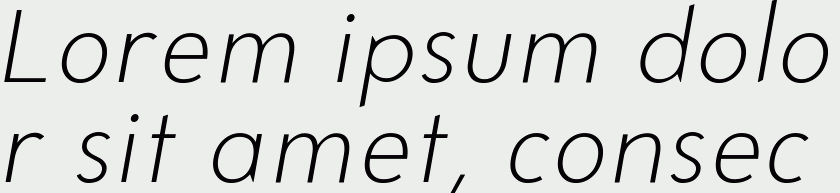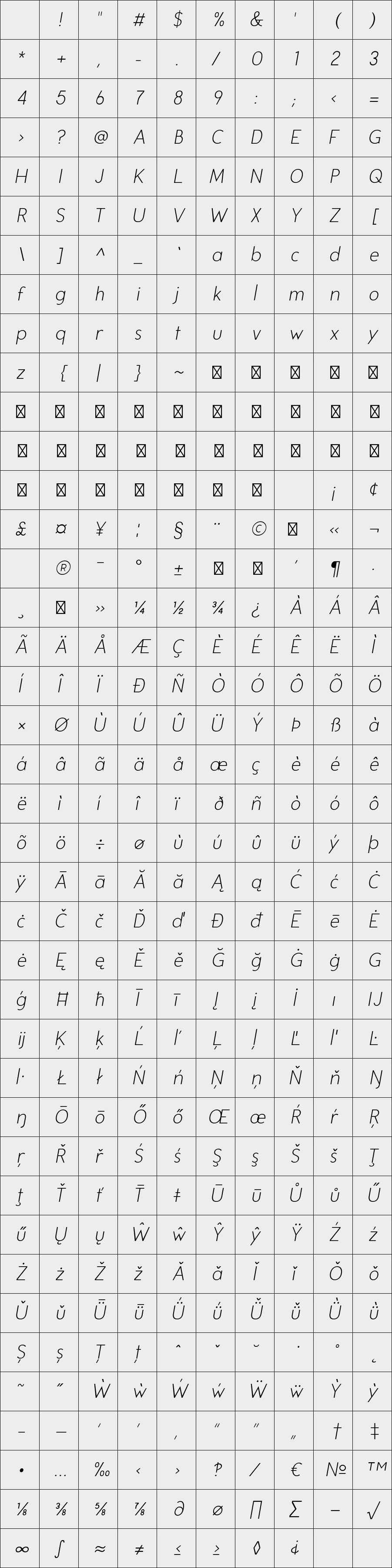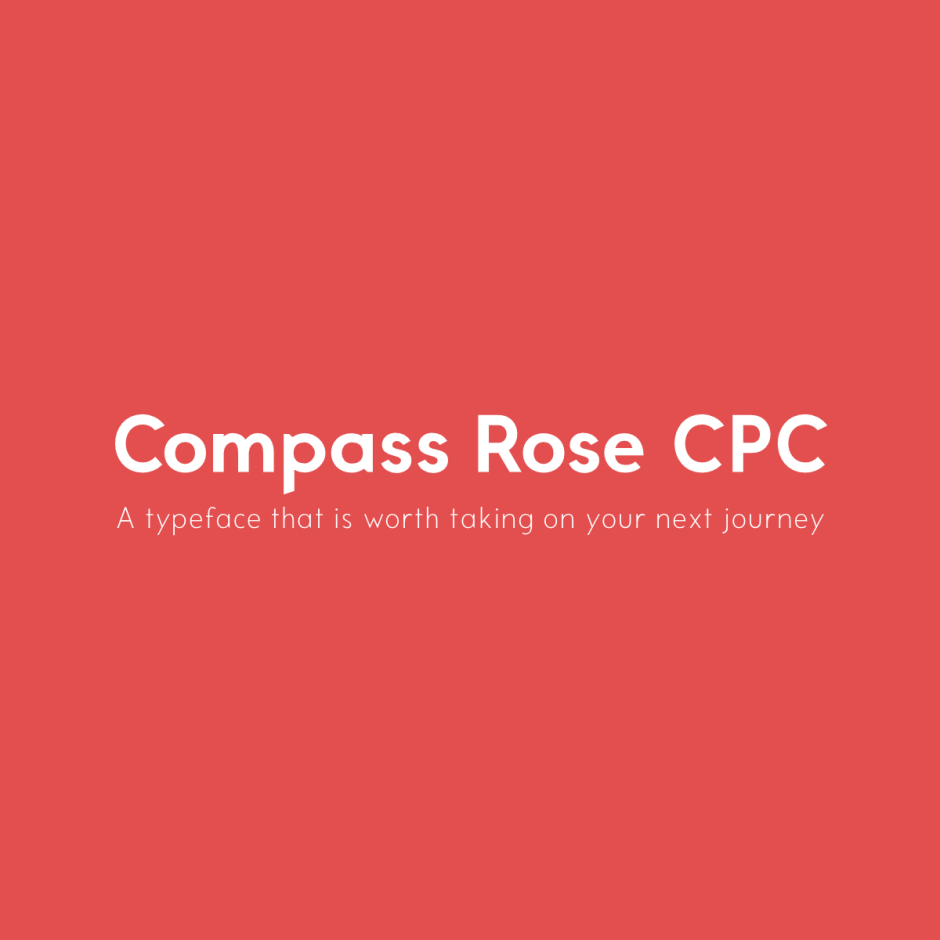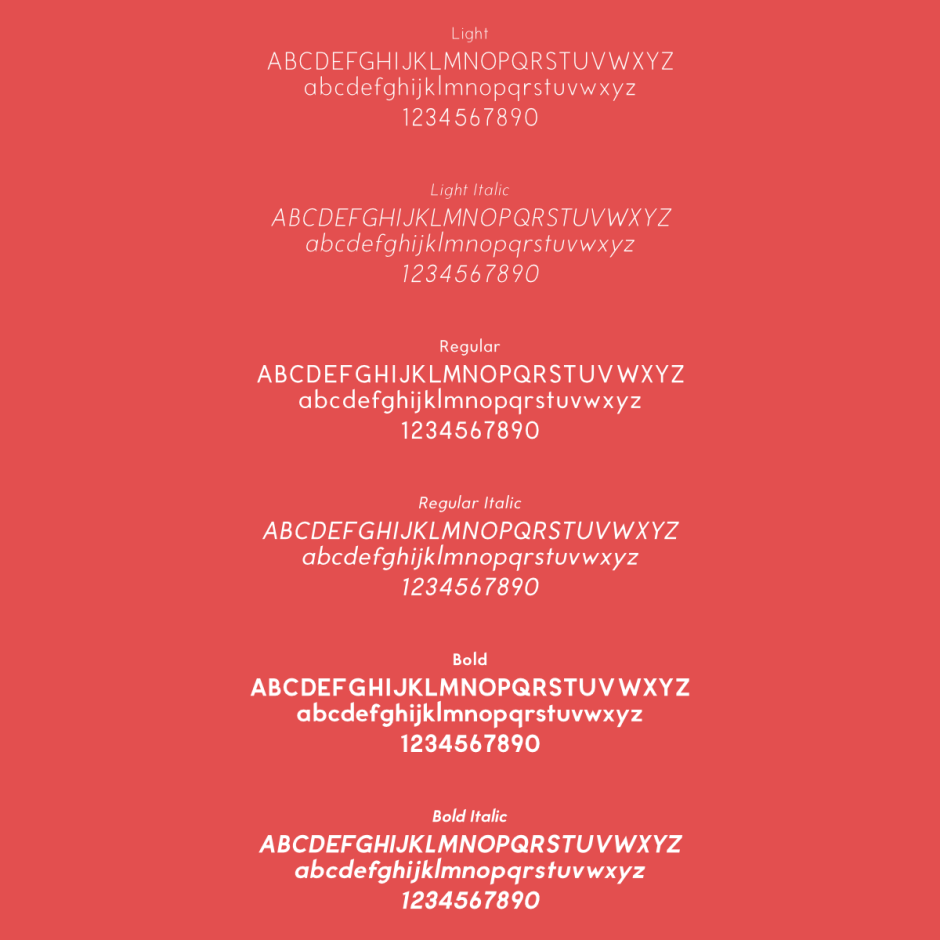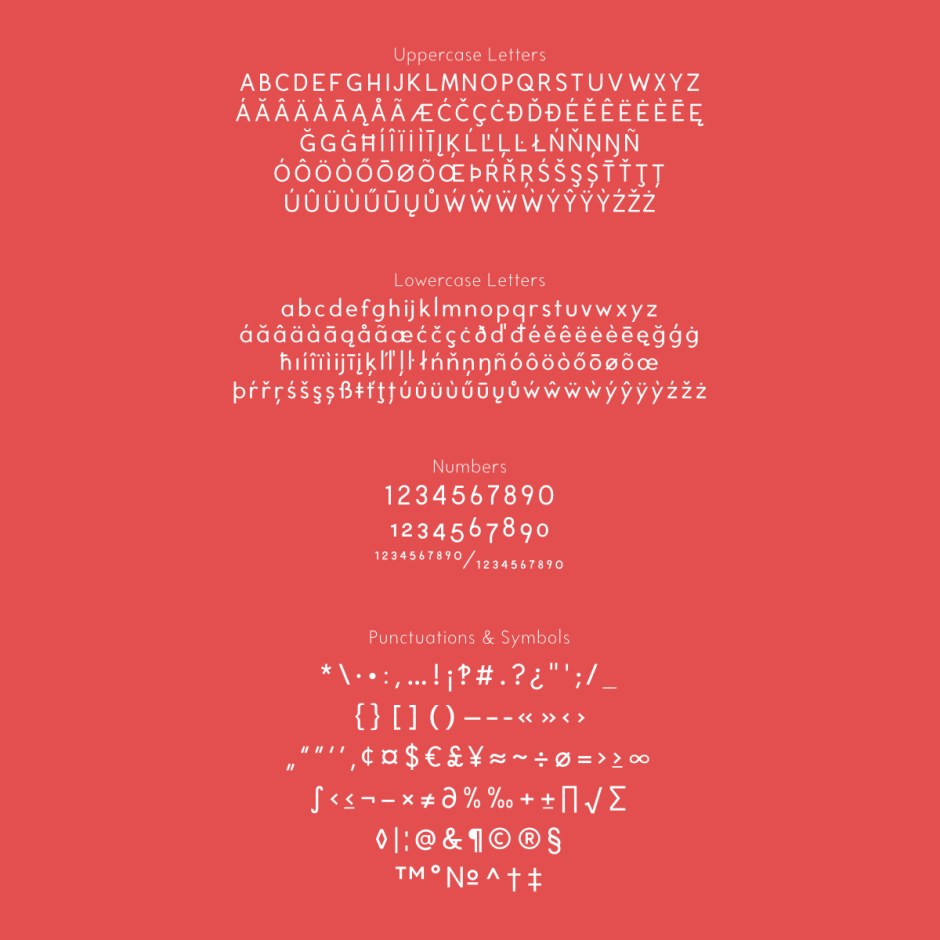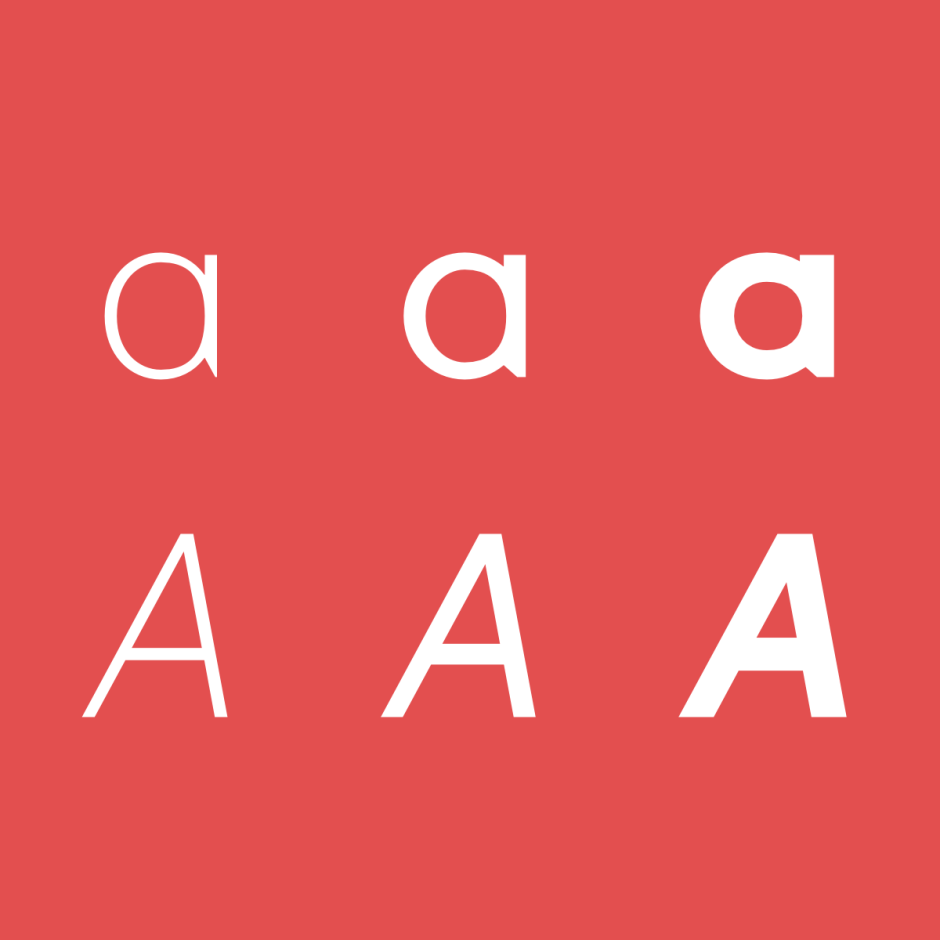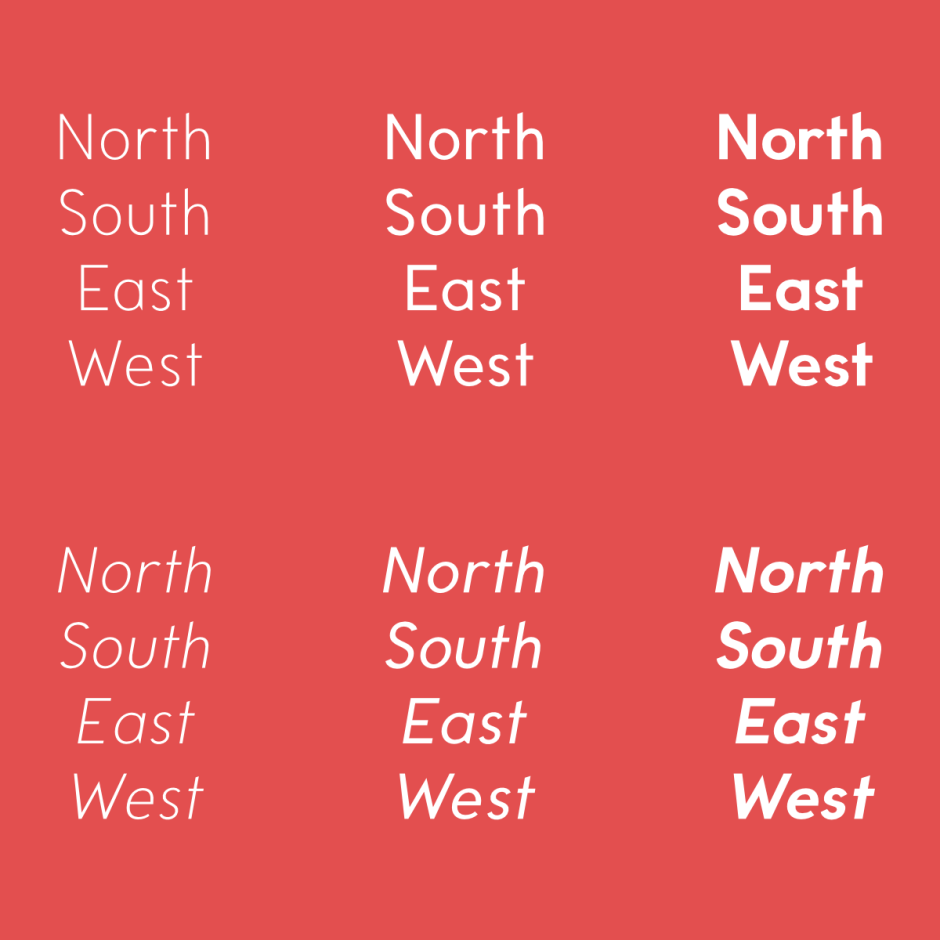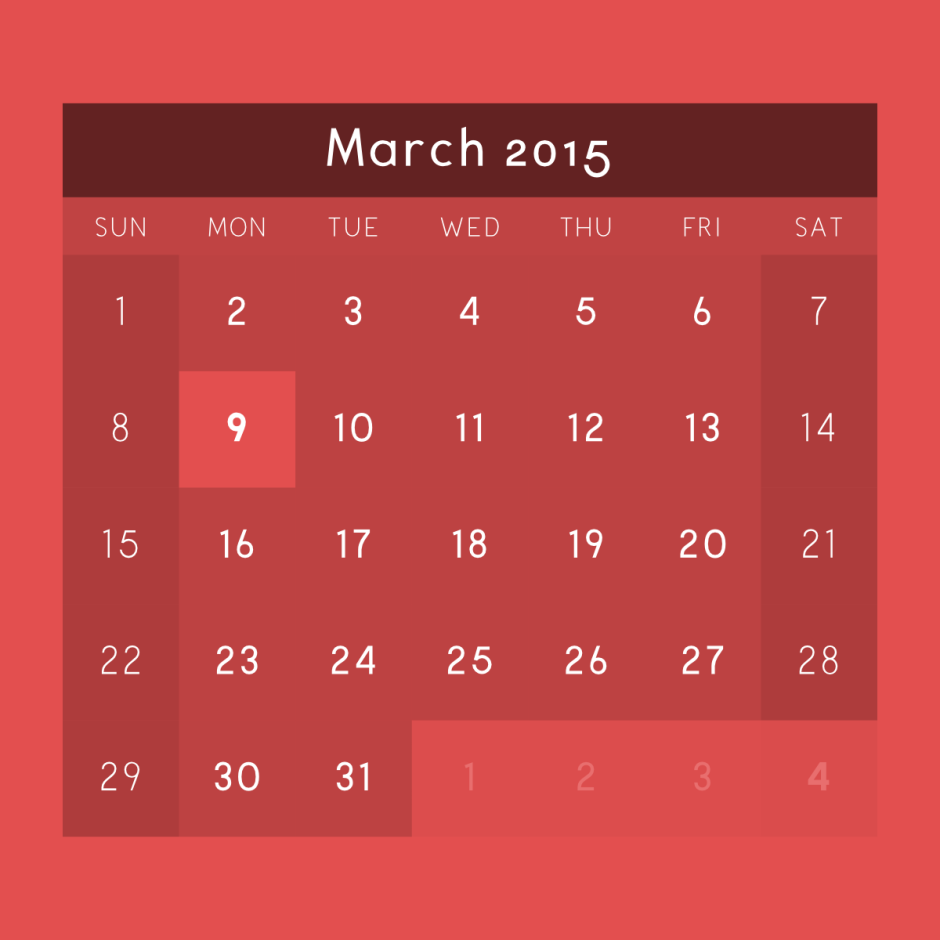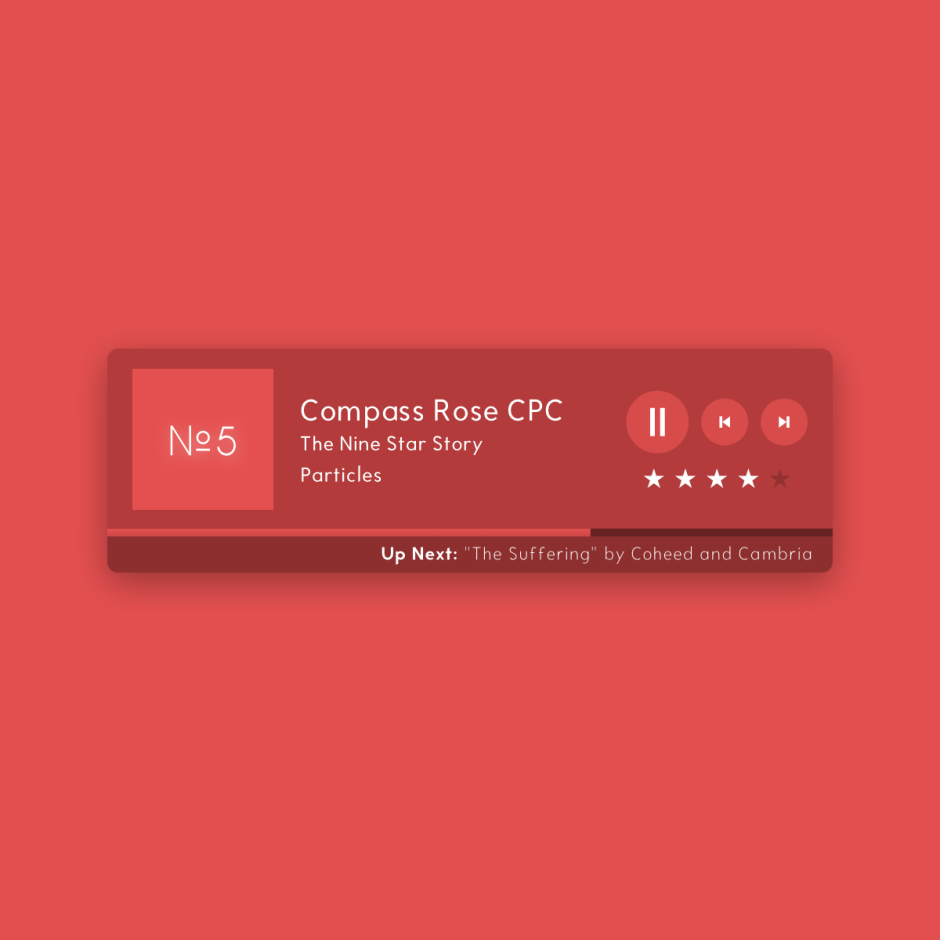
Compass Rose CPC
/ Compass Rose CPC - Light Italic
Compass Rose CPC is a geometric sans serif typeface inspired by the true way of navigation, by compass. It was created because I wanted a typeface for my website that reflected my style and the direction of my art and design work. The letters were designed to work at small and large sizes. Use it as big header messages, website content or labels in your software.
Features:
- Light, Regular, and Bold Weights with Italics
- Uppercase and Lowercase Letters
- Lining, Tabular, Old style, and Fraction Numbers
- A bunch of common symbols and marks